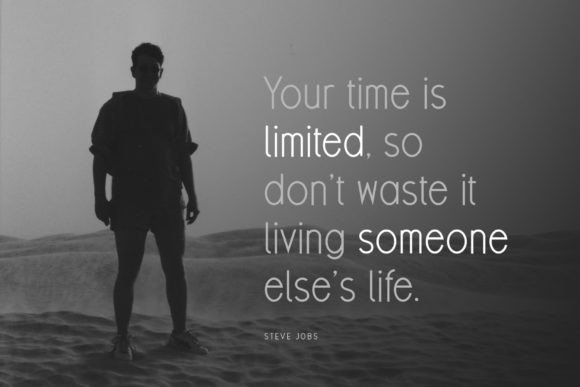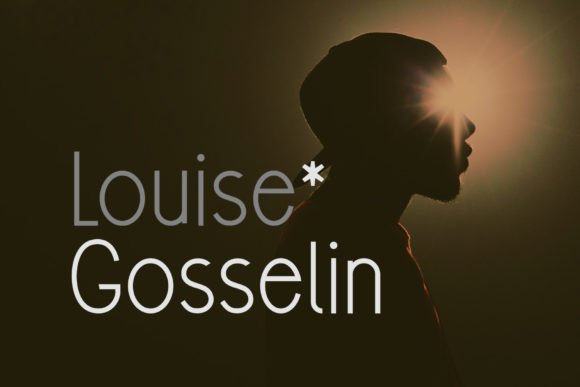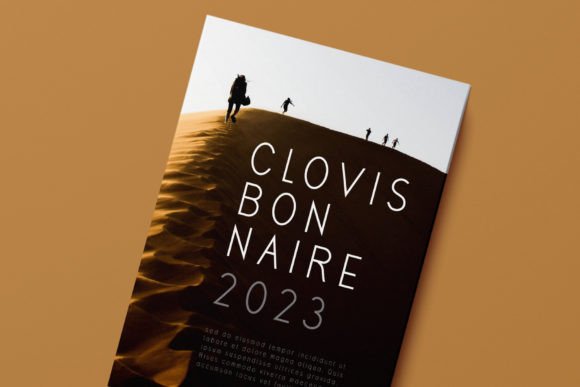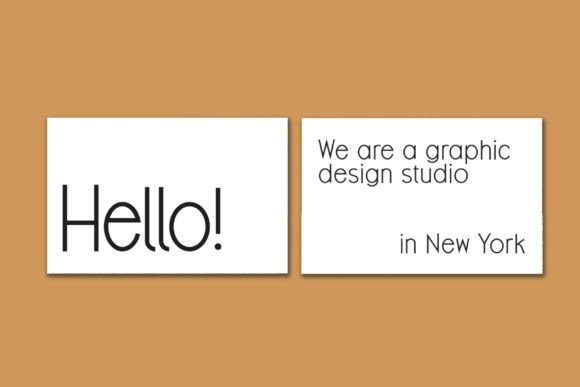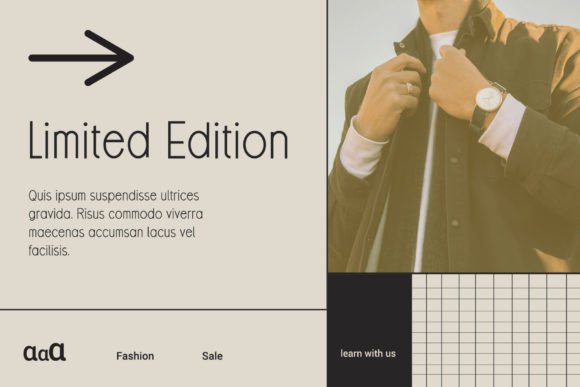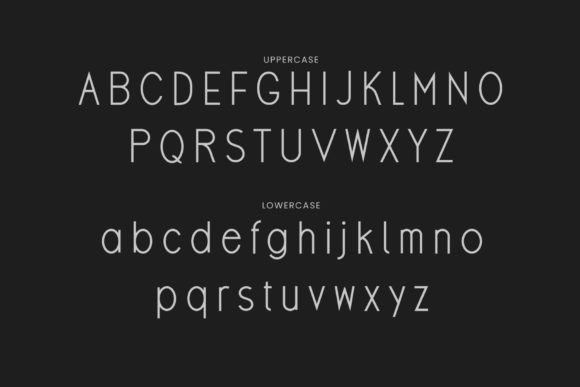
Introduction to Rampiro Font
Have you ever stared at a blank canvas, searching for the perfect font to bring your creative project to life? The right font can make all the difference, elevating your design from bland to grand. For designers, finding a high-quality font that fits the bill can be a daunting task, but what if I told you that there’s a design resource that’s about to become your new go-to?
Enter the Rampiro Font, a stunning minimalist sans serif font that’s perfect for branding projects, logos, social media posts, and more. With its sleek and modern aesthetic, this font is sure to make your designs stand out from the crowd. And the best part? It’s PUA encoded, making it easy to access all of its amazing glyphs and ligatures.
Key Features of Rampiro Font
- High-quality, professional design suitable for various creative projects
- Features a unique, modern design with clean lines and elegant typography
Honest Review: Rampiro Font
As a designer, I’m always on the lookout for high-quality design resources that can elevate my creative projects. The Rampiro Font is one such find that has caught my attention.
What works well about the Rampiro Font is its versatility. It comes in a range of styles and weights, making it perfect for a variety of applications. The font also features a transparent background, which is ideal for overlaying text on images or backgrounds.
- ✨ High-quality design with a professional finish
- ✨ Wide range of styles and weights available
- ✨ Transparent background for seamless overlays
However, I did encounter some limitations while using the Rampiro Font. For instance, the font may not be as effective in smaller sizes, and some users may find the design a bit too playful for certain projects.
- ⚠️ May not be suitable for small text sizes
- ⚠️ Design may be too playful for some projects
Overall, I’d say the Rampiro Font is a solid addition to any designer’s toolkit. Its high quality, versatility, and free download option make it a great resource for creative projects. With a little experimentation, I’m confident that designers will be able to unlock its full potential.
Rampiro Font
The Rampiro Font is a versatile, high-quality design resource ideal for creative projects requiring a unique and modern touch.
Tips for Getting the Most Out of Rampiro Font
To maximize the impact of the Rampiro Font, use it sparingly and in combination with other design elements. Experiment with different font sizes and styles to create visual interest.
The Rampiro Font is ideal for:
Designing modern logos and branding materials
Creating engaging social media graphics
Developing high-quality digital publications